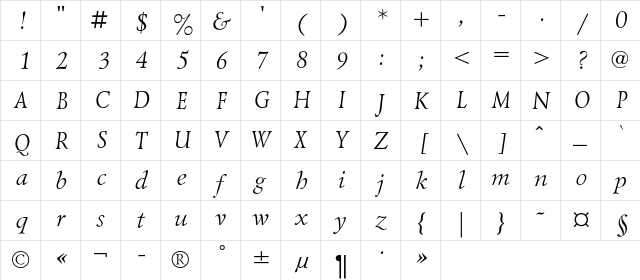
LazurskiC Italic
Design Context for LazurskiC Typeface
LazurskiC is a composed and adaptable typeface that performs quietly and consistently across a wide range of design contexts. The slanted form adds forward momentum and visual energy.
Pro Tip: Try LazurskiC for annotation and caption copy alongside an upright companion — the contrast in angle creates a dynamic but ordered typographic system.